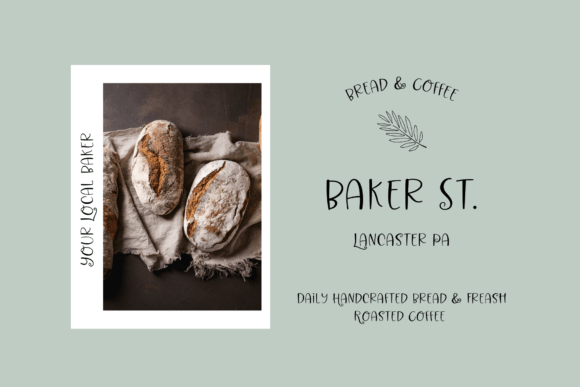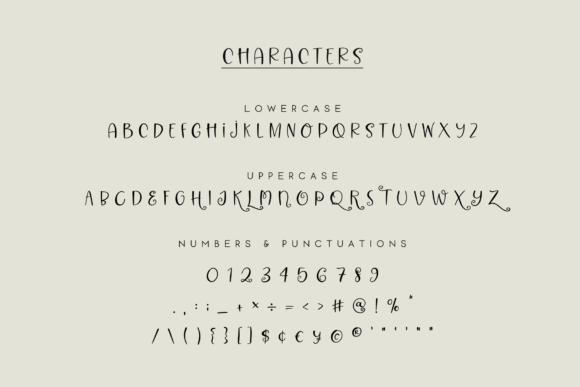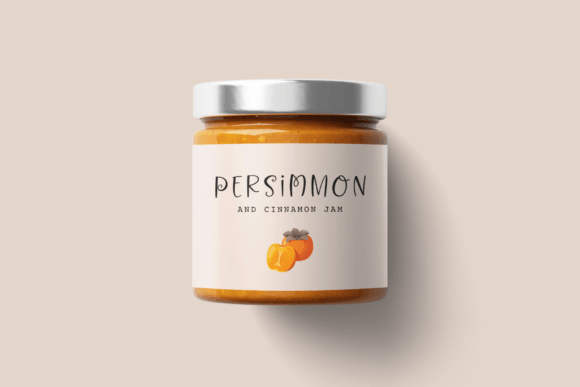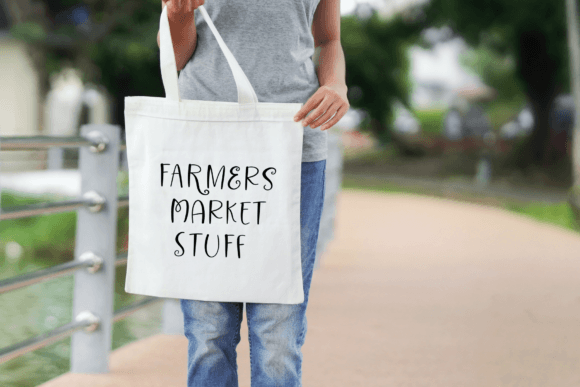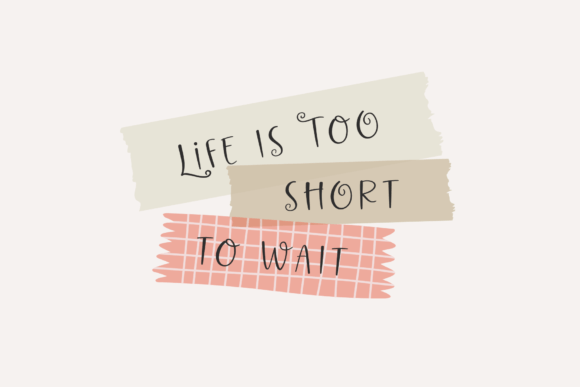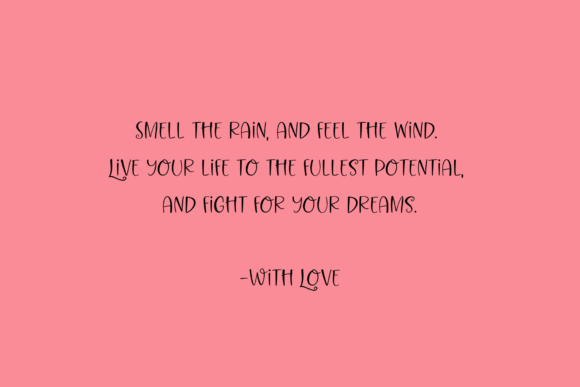
Introduction to Rapturous Font
Remember the thrill of finally finding the perfect font to bring your creative project to life? For designers, it’s a moment of pure joy, like stumbling upon a hidden treasure. And what about when you discover a font that’s not only beautiful but also versatile, suitable for a wide range of applications? That’s exactly what the Rapturous Font has to offer.
With its delicate, whimsical touch, the Rapturous Font is perfect for creating super cute logos, branding materials, and stationery. Its high-quality design makes it a valuable resource for designers, allowing them to add a personal touch to their work. Plus, with a transparent background, it’s easy to layer and combine with other design elements. And the best part? It’s available for free download, making it an accessible tool for creatives of all levels.
Whether you’re working on a branding project, designing a children’s book, or creating a set of greeting cards, the Rapturous Font is sure to inspire your creativity and help you achieve your design goals.
Key Features of Rapturous Font
- High-quality design resource suitable for various creative projects, including logos, posters, and digital art.
- Unique, hand-drawn style with a transparent background, offering flexibility and versatility in design applications.
- Available in a range of sizes, including small caps, uppercase, and lowercase letters, to cater to various design needs.
- Perfect for designers and artists looking for a distinctive, creative font to elevate their work and make it stand out.
Honest Review: Rapturous Font
I recently had the chance to work with the Rapturous Font on a creative project and I must say, it’s been a game-changer. This font is perfect for any design resource looking to add a touch of elegance and sophistication to their work.
- ✨ High-quality design: The Rapturous Font is incredibly detailed and well-designed, making it perfect for a wide range of creative projects.
- ✨ Versatile: This font can be used for both digital and print projects, giving designers a lot of flexibility when it comes to their design choices.
One thing to note is that the font does come with a transparent background, which can be a bit tricky to work with at times. However, this is a minor limitation and can be easily overcome with a bit of creativity.
Overall, I’m thoroughly impressed with the Rapturous Font and I would highly recommend it to any designer looking for a high-quality, versatile font for their next creative project.
The Rapturous Font is a high-quality design resource ideal for creative projects requiring a unique and elegant touch. With a transparent background, this font is perfect for adding a touch of sophistication to any design.
The Rapturous Font is ideal for use in creative projects such as wedding invitations, business cards, and marketing materials. Its elegant and sophisticated design makes it perfect for adding a touch of luxury to any design.